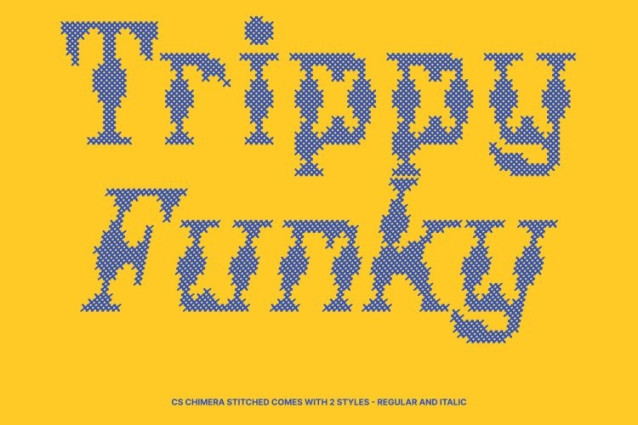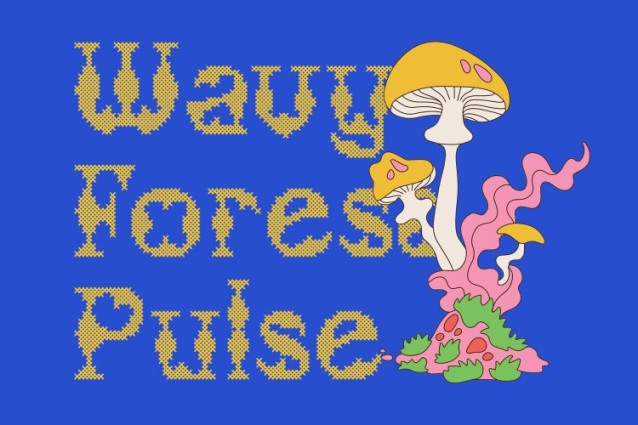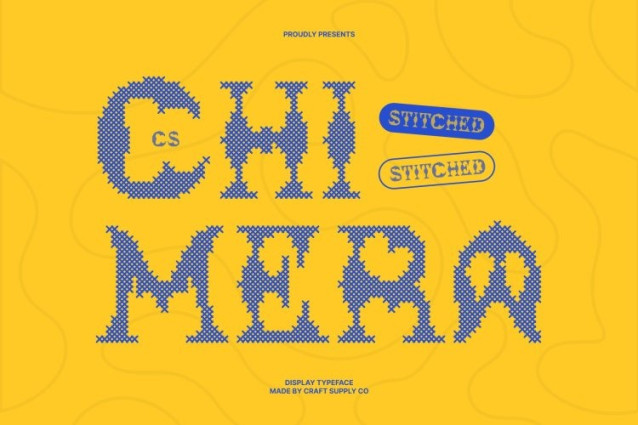
CS Chimera Stitched Font
CS Chimera Stitched Font is a vibrant display font that blends psychedelic and funky shapes to create a visually captivating design. Inspired by the colorful visual culture of the 1960s and 1970s, its letterforms feature swirling curves, and dynamic shapes. Enhanced with a stitched style inspired by thread sewn or embroidered on fabric, this version introduces a handcrafted texture that adds warmth and a unique tactile character to its bold psychedelic form.
Funky Letterforms with Embossed Stitch Detail
The playful shapes of this font are complemented by a distinctive cross-shaped stitch pattern layered across each character. This embroidered effect creates an embossed, fabric-like texture that enriches the typography with depth and visual interest. The stitched detailing adds a classic, nostalgic, relaxed, and warm impression.
Expressive Energy with Retro Psychedelic Spirit
With its twisting forms and experimental design, this font captures the free-spirited creativity of psychedelic typography. The combination of bold curves, funky proportions, and stitched texture results in a font that feels lively, artistic, and full of personality perfect for designs that celebrate individuality and visual experimentation.
Perfect for Music, Posters, and Creative Projects
This is ideal for music posters, event branding, album artwork, packaging, and creative promotional materials. Its fusion of psychedelic movement, funky design elements, and handcrafted stitched detail creates a distinctive typographic style that ensures your projects feel memorable, and visually striking.